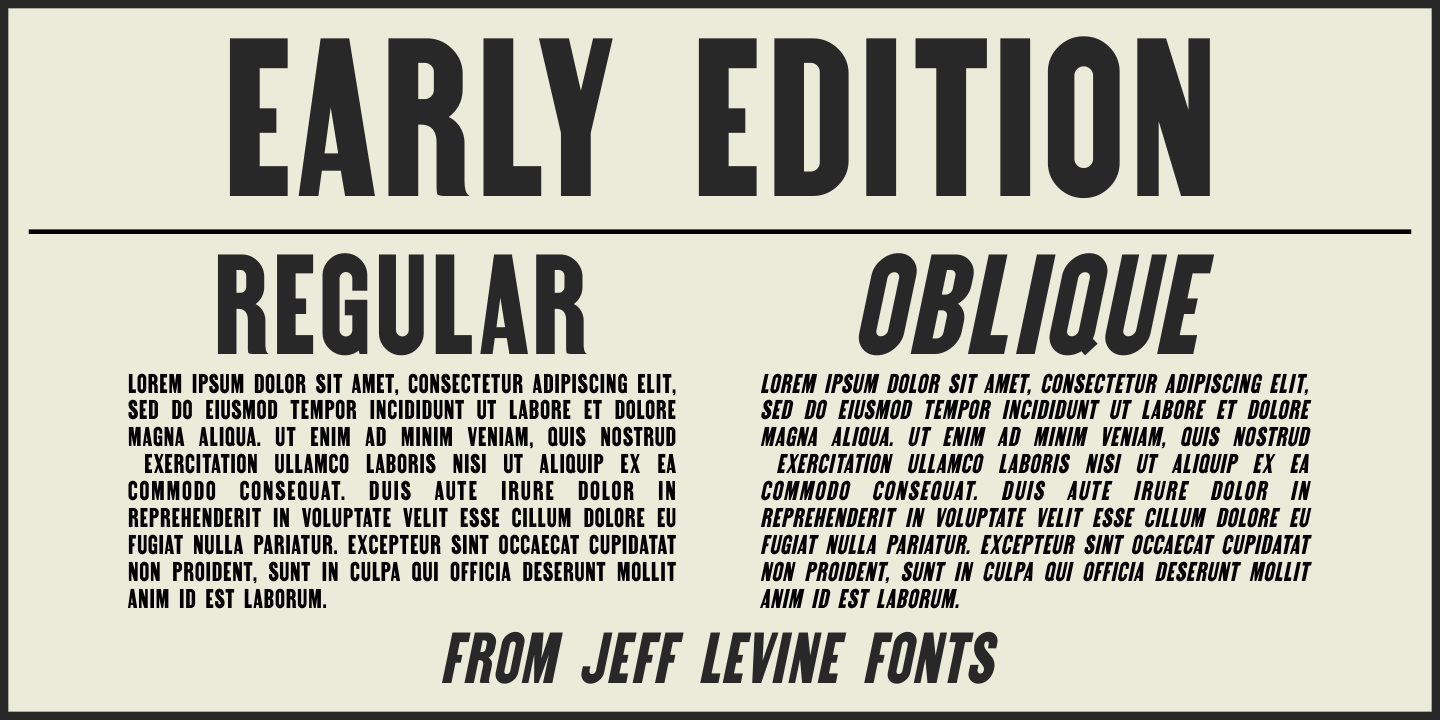
This classic and authentic typeface is perfectly suited for a wide range of nostalgic applications, including vintage-style newspaper layouts, retro posters, historical document reproductions, traditional book covers, period-specific branding, and any project aiming to evoke the charm of early print media. Its timeless aesthetic ensures your message carries an air of genuine heritage.
What makes the Early Edition JNL Font so exciting? It’s a direct portal to the golden age of print. This isn't just a font; it's a meticulously crafted homage to the newspapers and publications of yesteryear. Its slightly imperfect, yet perfectly charming, letterforms capture the essence of movable type and traditional printing presses, imbuing your designs with an instant sense of history and authenticity. Whether you're designing a local diner menu, a historical exhibit, or a brand with a vintage soul, Early Edition JNL provides the ideal typographic foundation to tell your story with genuine character and warmth.
The Early Edition JNL Font typically comes with a practical and cohesive family designed to provide you with versatile design options. This often includes various weights like regular, bold, and sometimes italic or condensed versions, allowing you to maintain a consistent vintage feel across different textual elements. It might also feature stylistic alternates or unique ligatures that further enhance its authentic, hand-set appearance, ensuring that your typography truly reflects the classic era it represents.